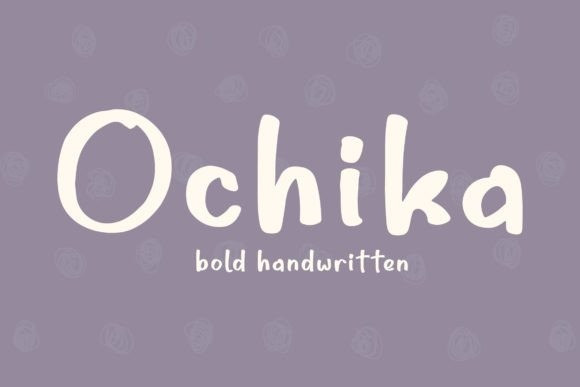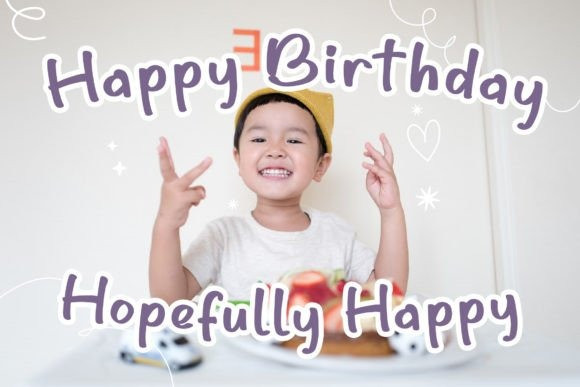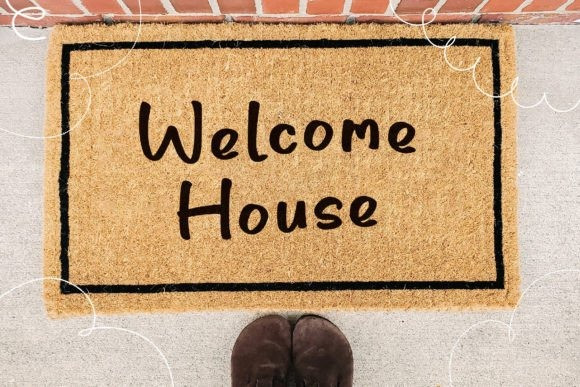
Ochika Font
Ochika – Bold Handwritten font suitable for any projects such as logos, branding projects, homeware designs, product packaging, mugs, quotes, posters, shopping bags, t-shirts, book covers, name cards, invitation cards, greeting cards, labels, photography, watermark, special events, and all your other lovely projects that need a beautiful script taste.